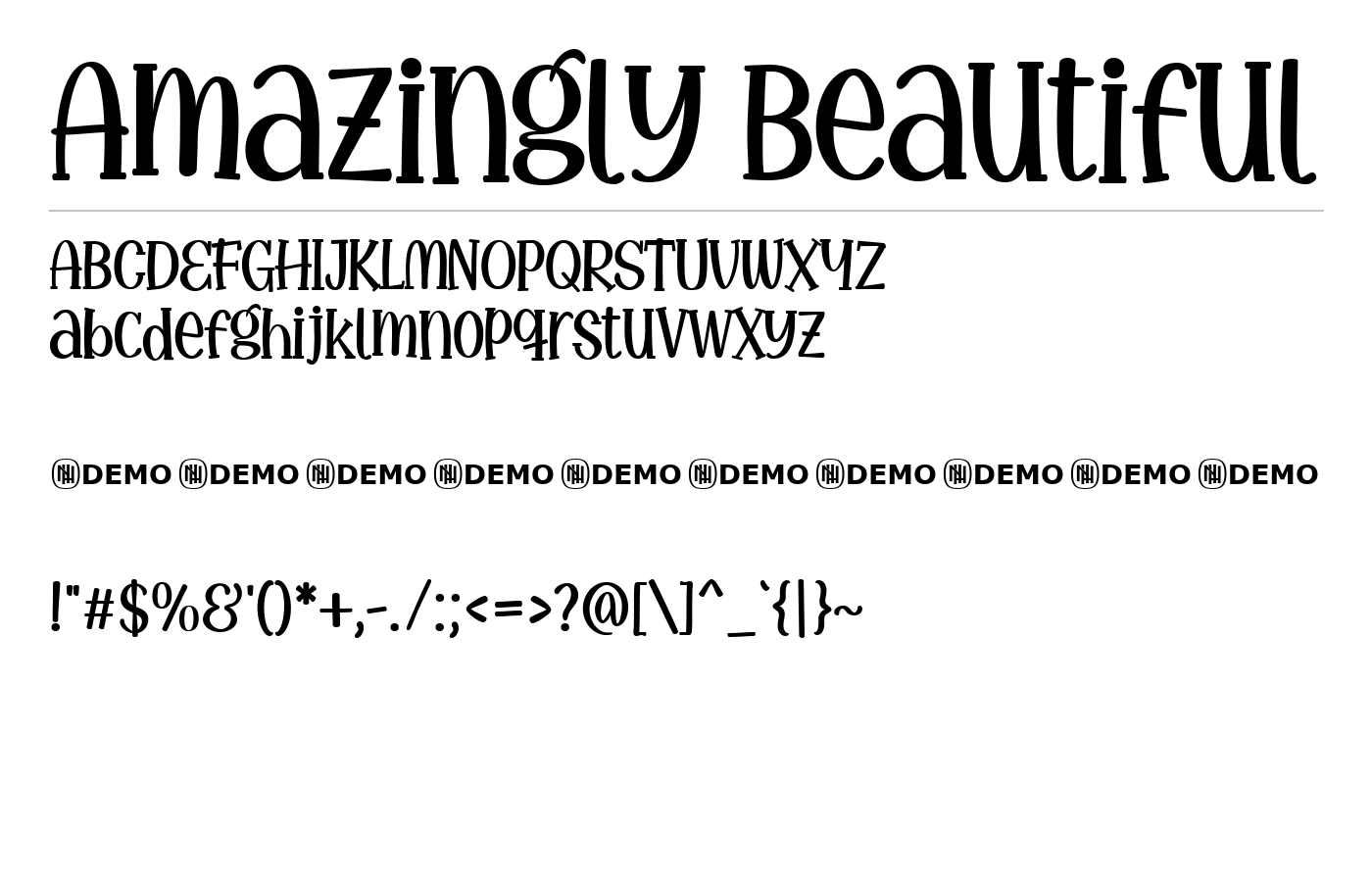
Amazingly Beautiful is a playful and quirky serif font with a tall, narrow structure and gentle stroke contrast, giving it a unique, hand-crafted charm. Its whimsical letterforms, featuring single-story a and g and slight irregularities, make it perfect for creative projects, invitations, and branding that seek a friendly, artistic vibe. This font shines best in headlines and decorative uses where personality and warmth are desired.
Amazingly Beautiful Font
About Amazingly Beautiful Font
| Font family | Amazingly Beautiful Font |
| Designer | Ali Hamidi |